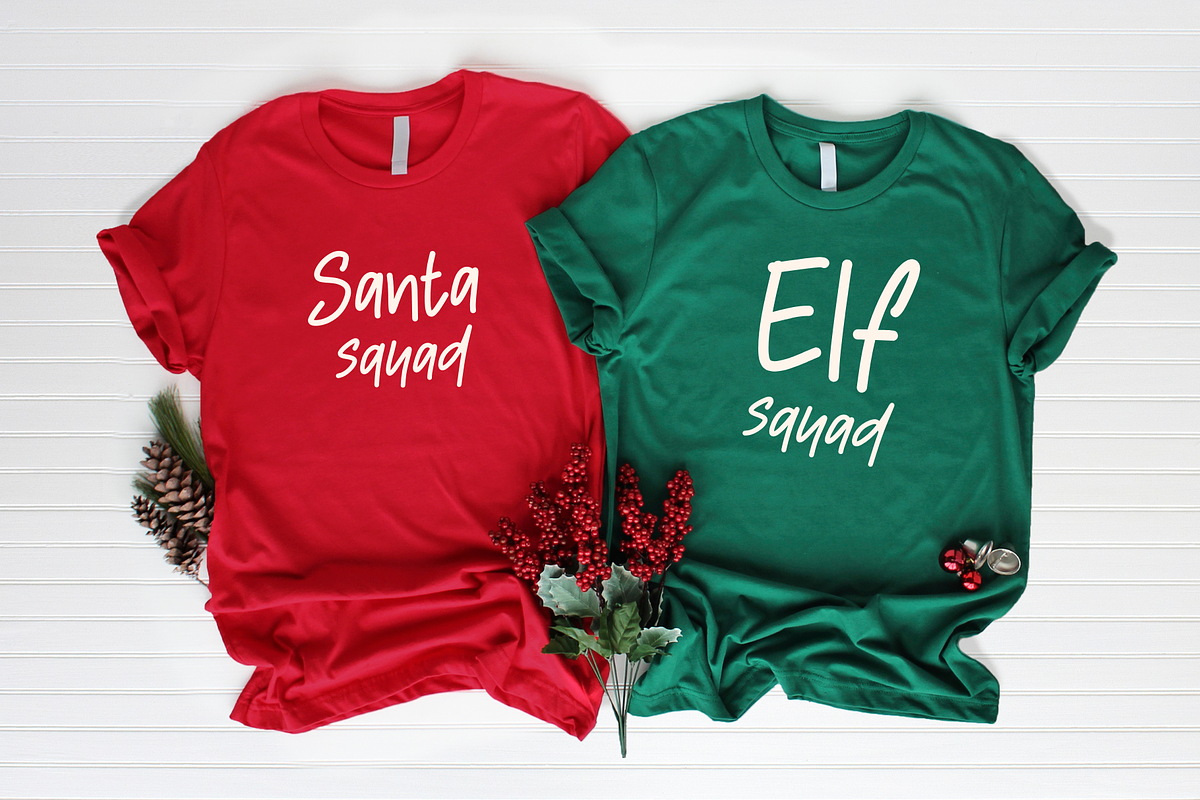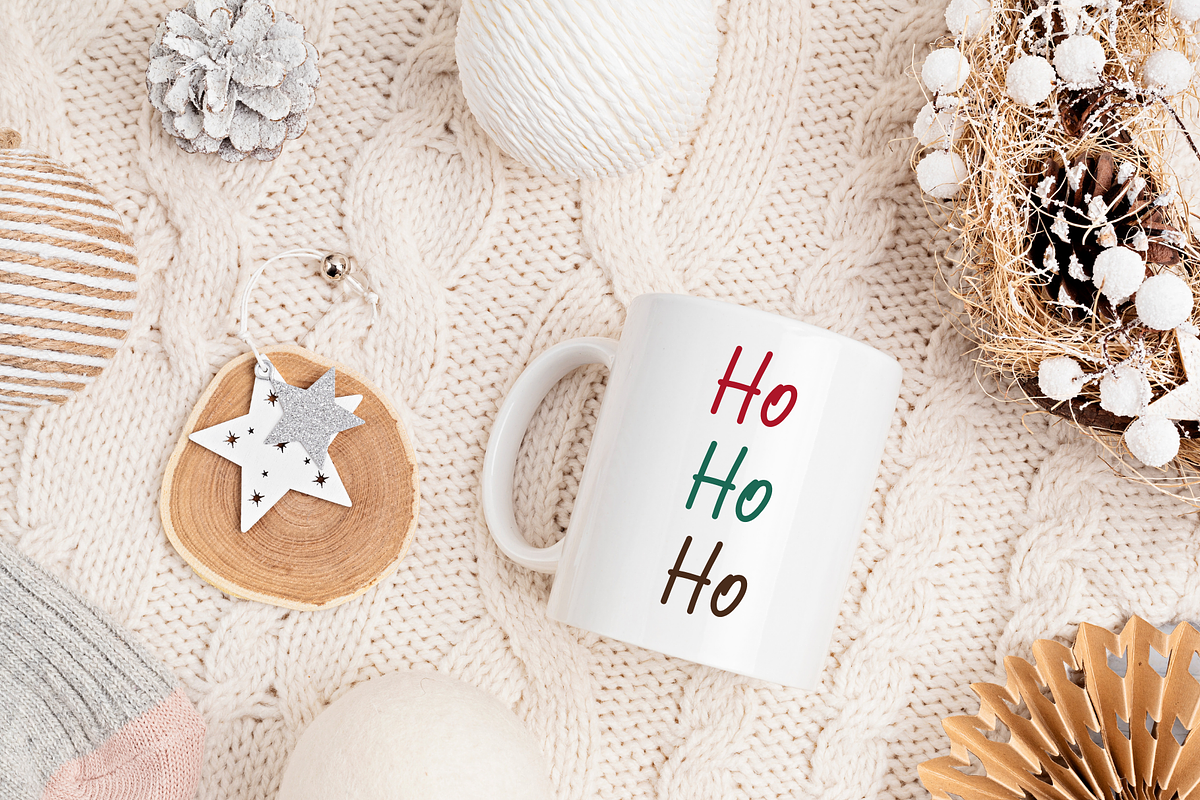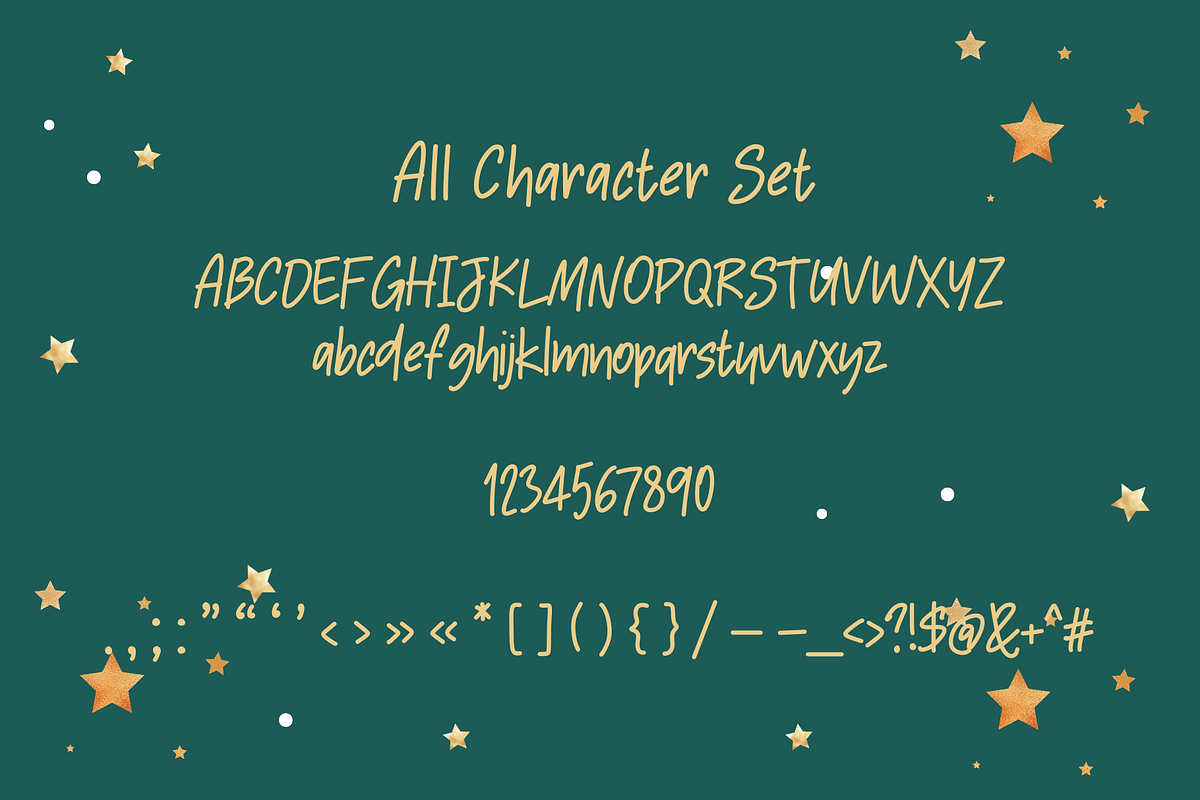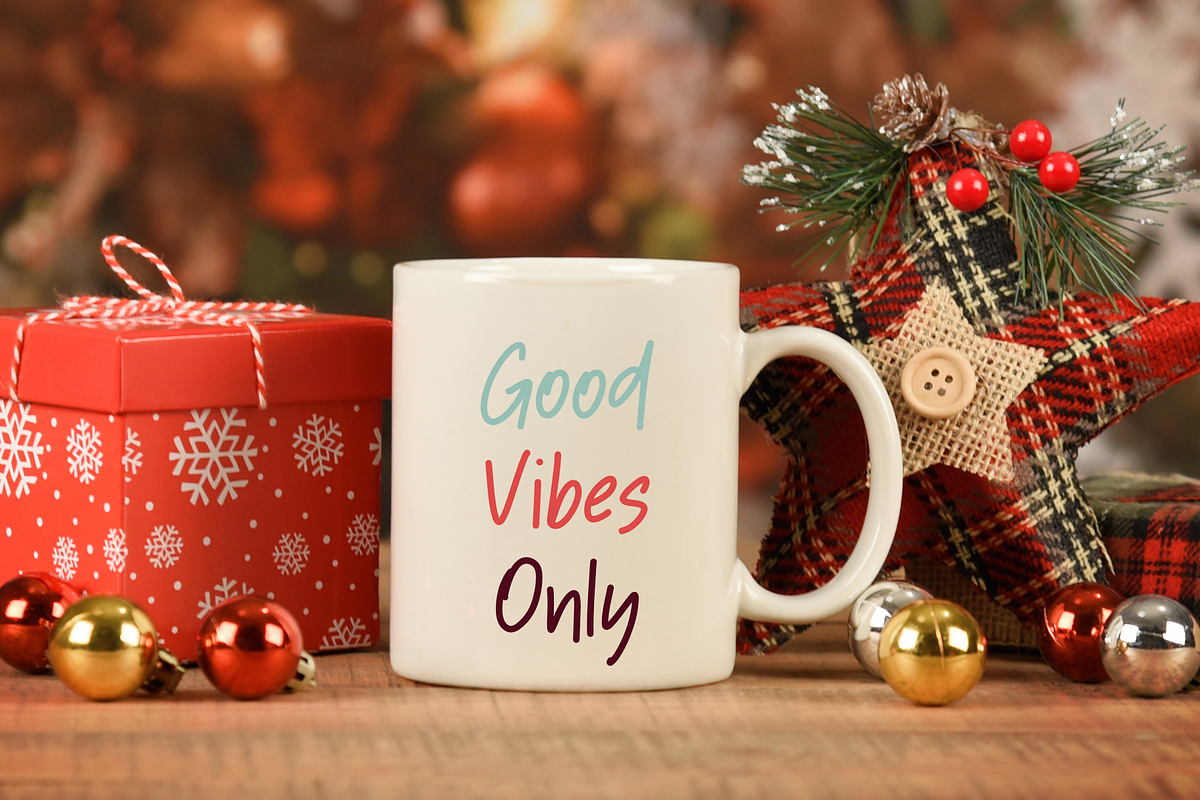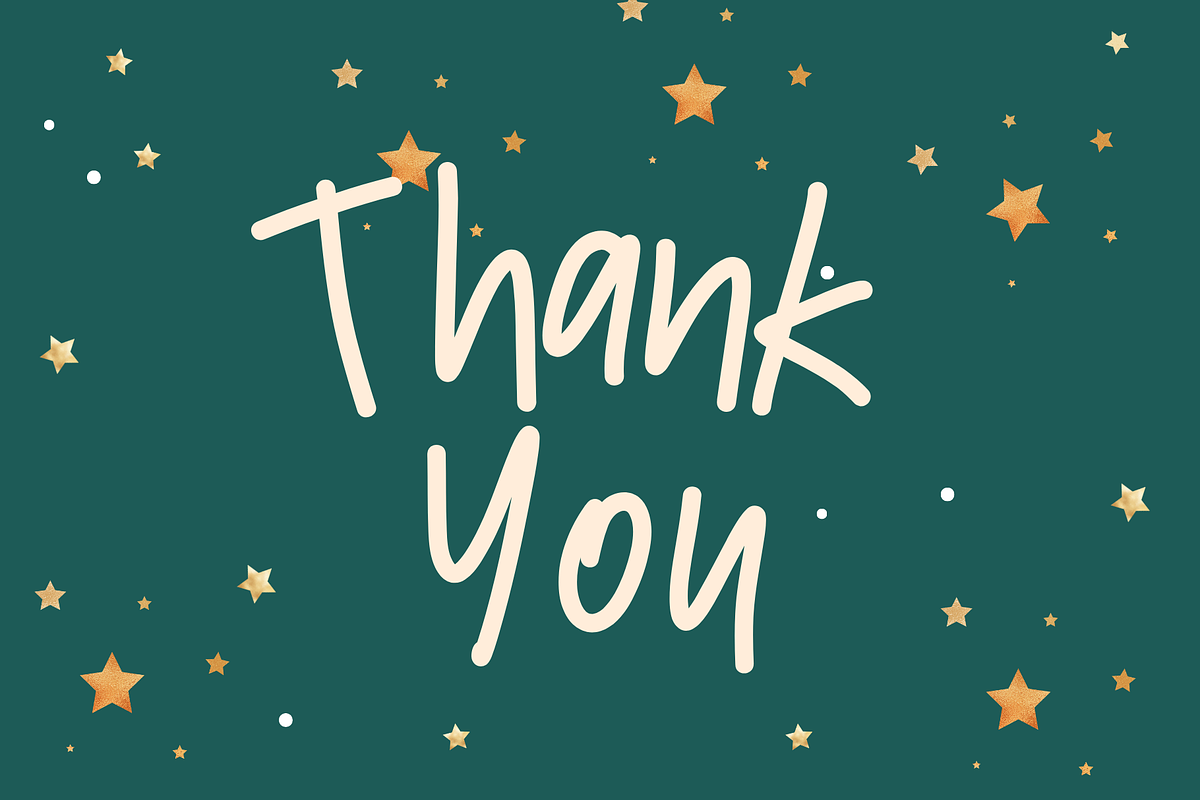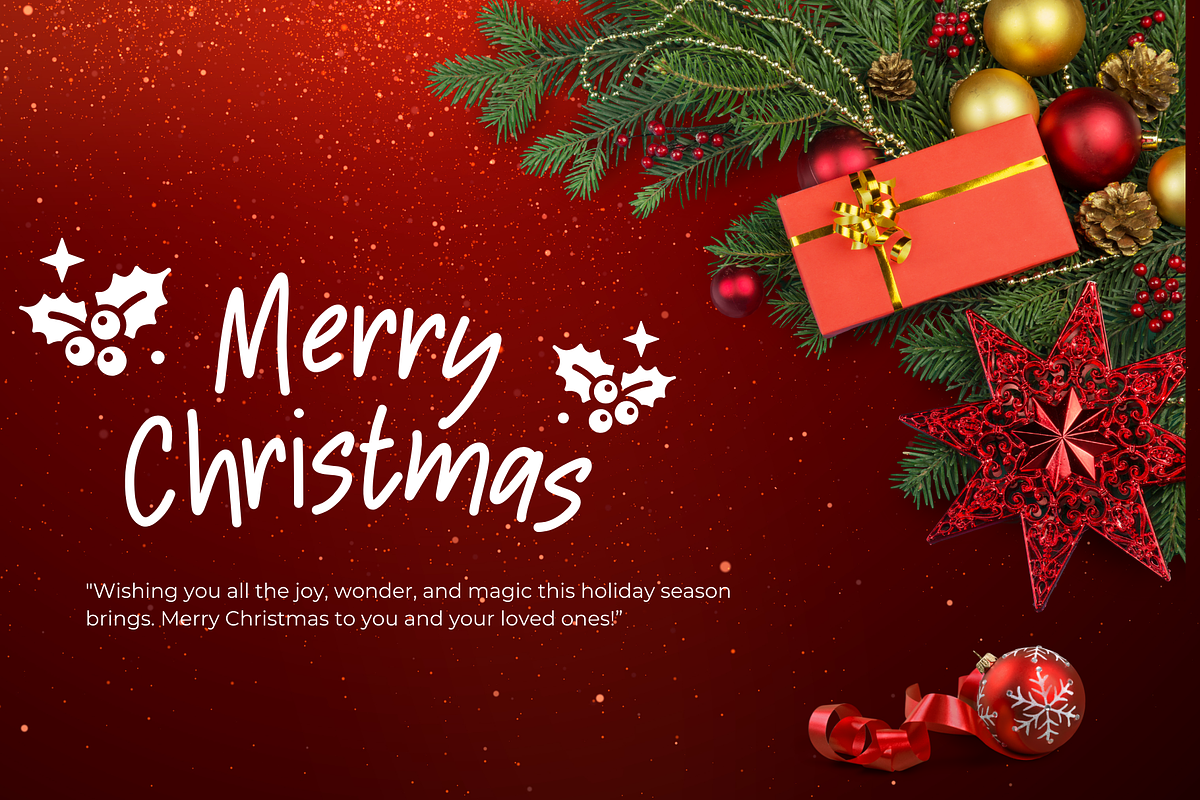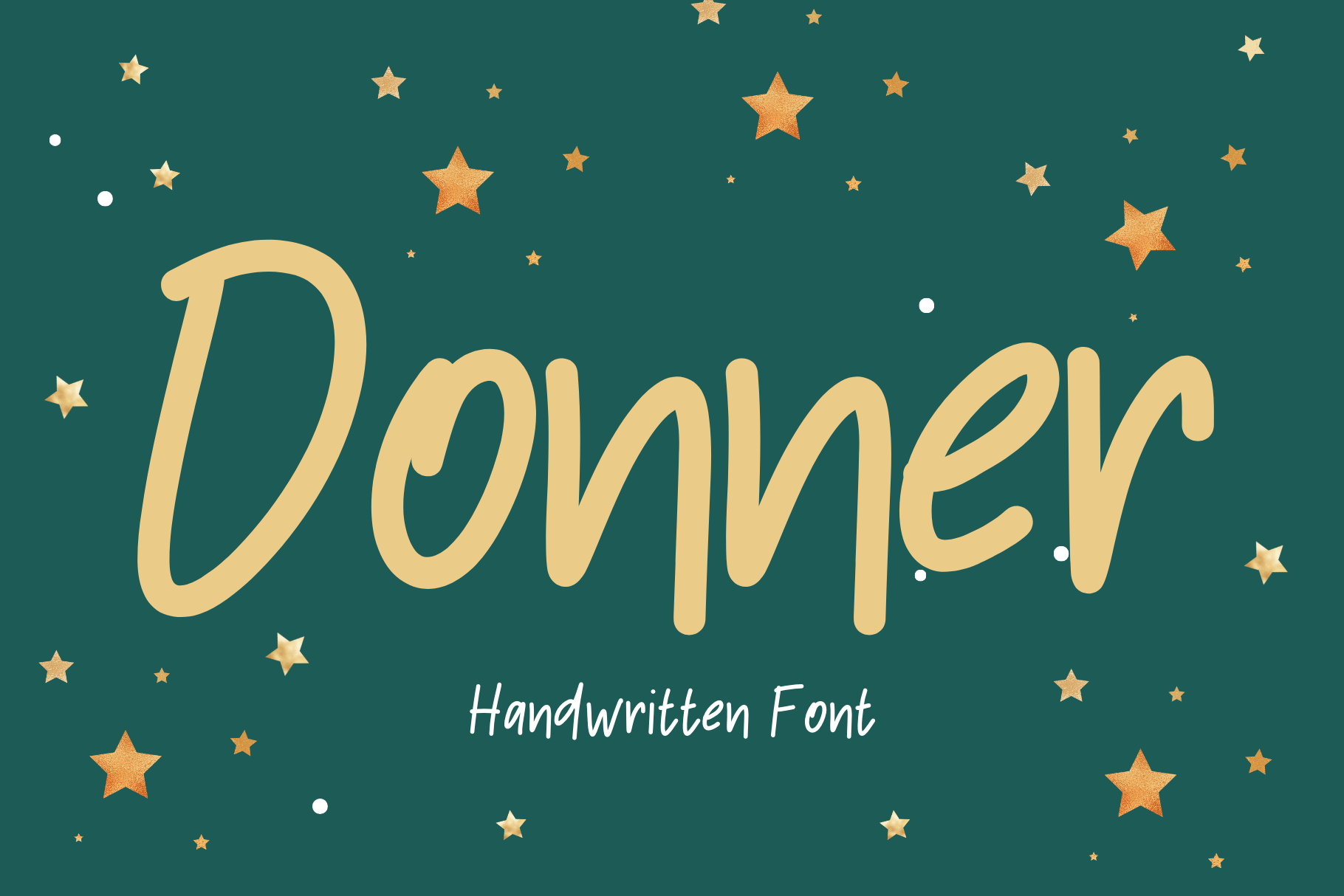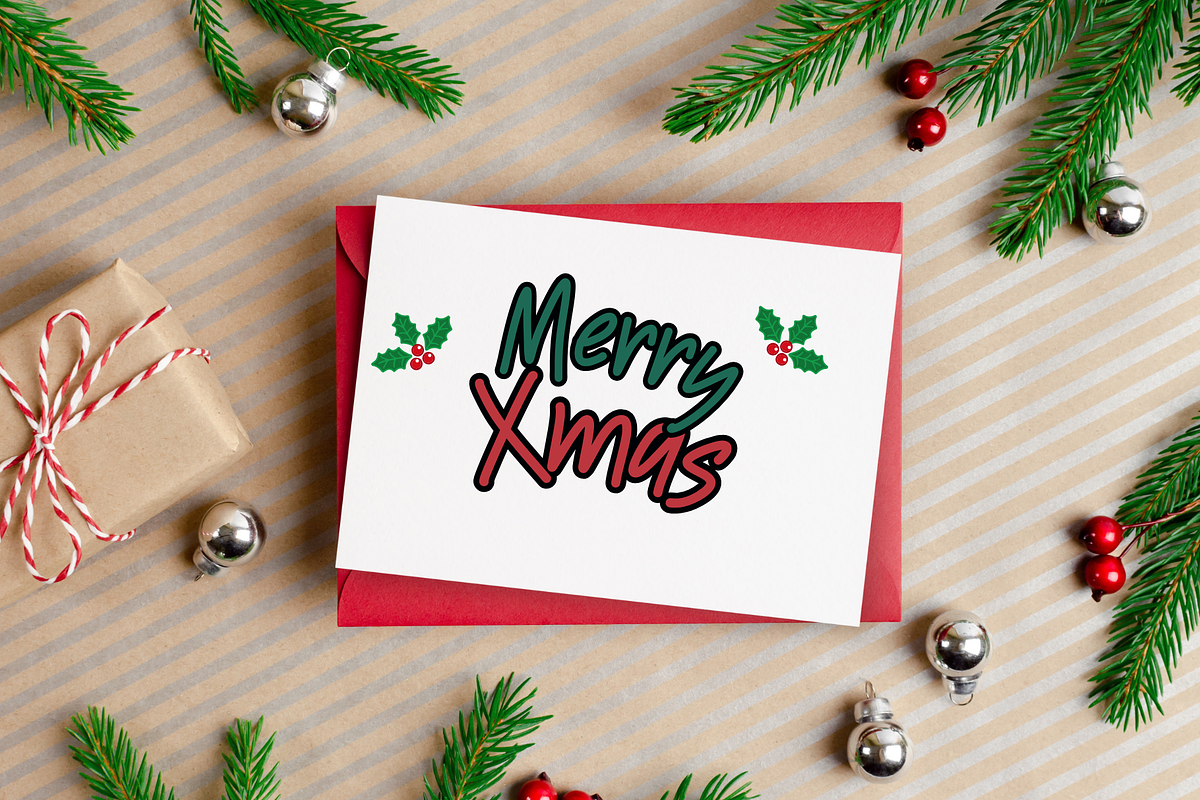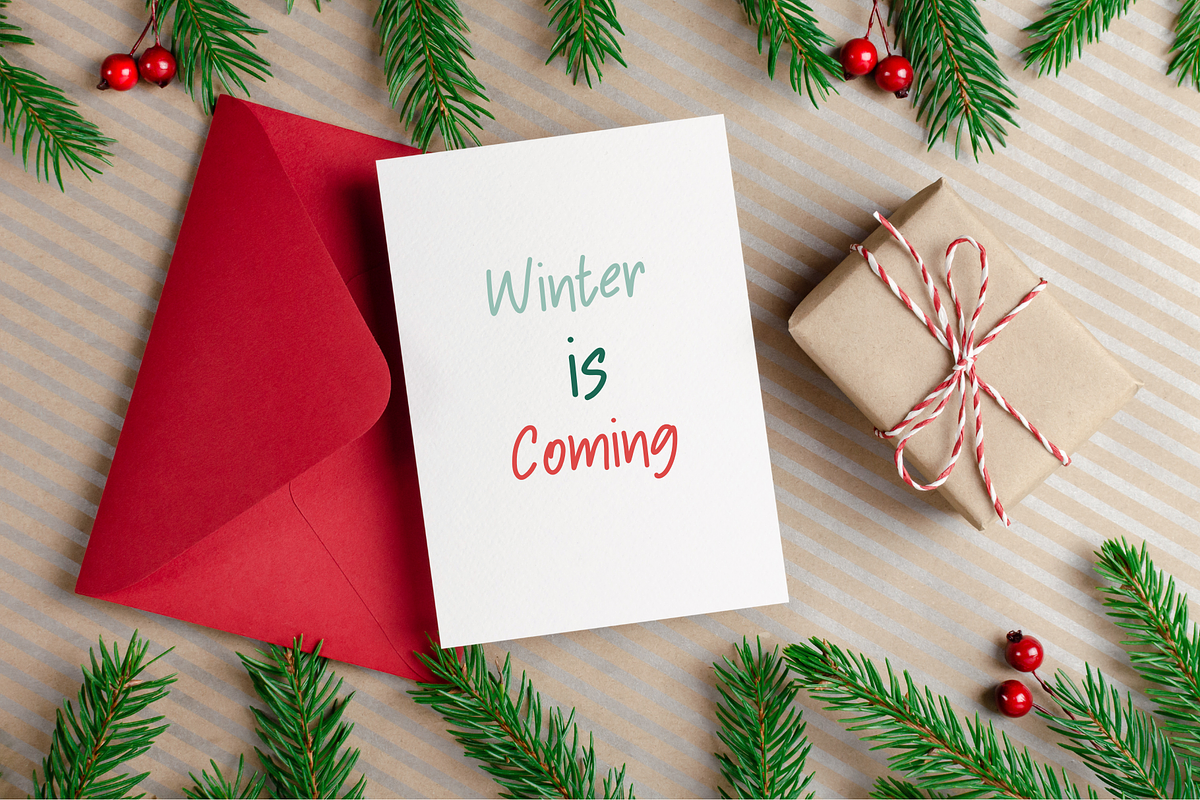
Donner is a handwritten font
Donner is a handwritten font. It embodies playfulness and authenticity and is the perfect choice for all your favorite projects, or even for blog posts, logos, branding, ads, invitations, greeting cards, planners, photo albums, decorations, and much more. Add it to any of your designs, and enjoy the results!